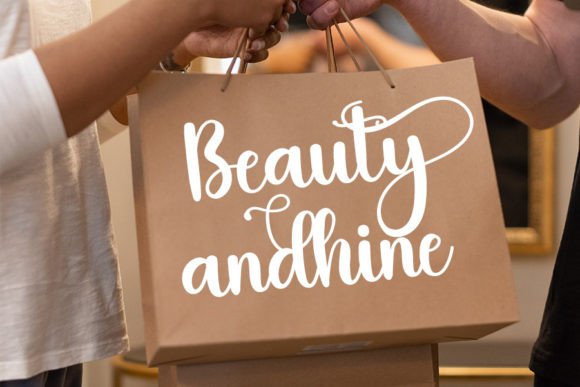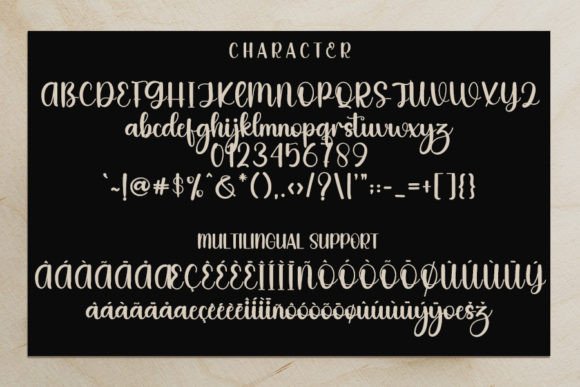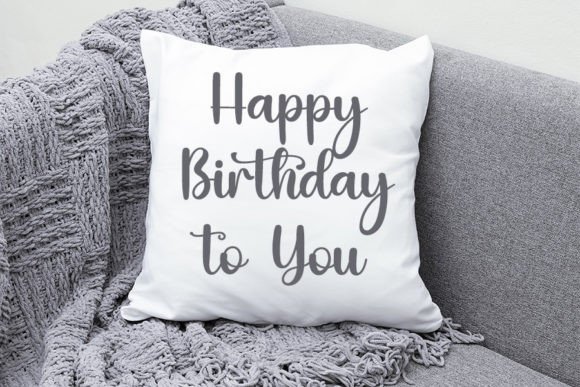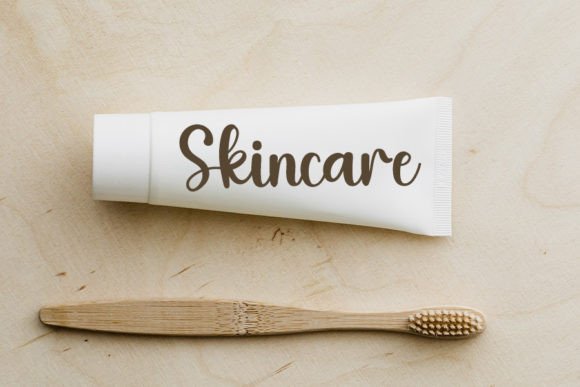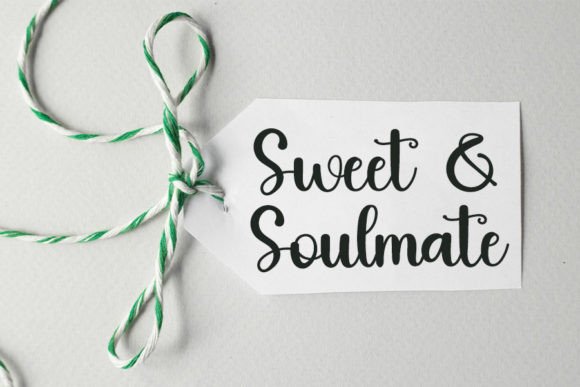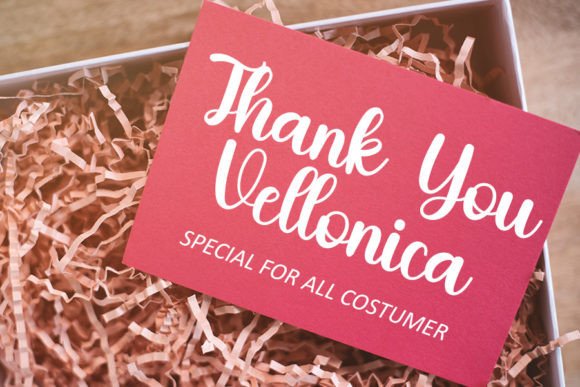
The Perfect Brush Stroke for Your Next Design Project
As a designer, have you ever found yourself struggling to convey a sense of elegance and sophistication in your work? We’ve all been there – staring at a blank canvas, desperately searching for the perfect brush stroke to bring our vision to life. That’s exactly where the Flay by Butterfly Font comes in – a beautiful, handwritten font that captures the essence of timeless calligraphy.
This stunning font is perfect for adding a touch of class to any design project, from branding and marketing materials to wedding invitations and artwork. With its impeccable form and contemporary atmosphere, the Flay by Butterfly Font is a valuable addition to any designer’s toolkit.
Key Features of “Flay by Butterfly Font”
- Unique Characteristics: Features a delicate, hand-drawn design with intricate details, giving it a whimsical and elegant feel.
- Font Style: Includes both regular and bold font styles for versatility in typography.
- Language Support: Supports a wide range of languages, including Latin, Cyrillic, and Greek alphabets, making it a great choice for international applications.
Flay by Butterfly Font Review
Flay by Butterfly Font is a beautiful, elegant script font that can add a touch of sophistication to any design project. The font has a smooth, flowing feel that makes it perfect for creating invitations, wedding stationery, and other special occasion materials. ✨ The subtle flair at the ends of each letter adds a delicate touch that sets it apart from other script fonts.
One of the standout features of Flay is its versatility. It works well in both digital and print formats, making it a great choice for designers who need to create materials for both online and offline use. ✨ The font is also highly customizable, with a wide range of options for adjusting the weight, spacing, and color of the text.
However, there are a few limitations to consider. ⚠️ For one, the font may not be as readable at small font sizes, so be sure to test it out before using it in a project. Additionally, the font’s delicate flair may not be suitable for all design styles – it’s best suited for elegant, sophisticated projects. ⚠️
Design Considerations
- Use in digital and print formats
- Customize font weight, spacing, and color
- Test at small font sizes
- Avoid using in bold, edgy design styles
Overall, Flay by Butterfly Font is a beautiful and versatile script font that is perfect for designers who want to add a touch of elegance to their projects. With its smooth, flowing feel and delicate flair, it’s a great choice for creating invitations, wedding stationery, and other special occasion materials. With a little care and attention to design considerations, Flay can be a valuable addition to any designer’s toolkit.
The “Flay by Butterfly Font” is ideal for:
Brand identity